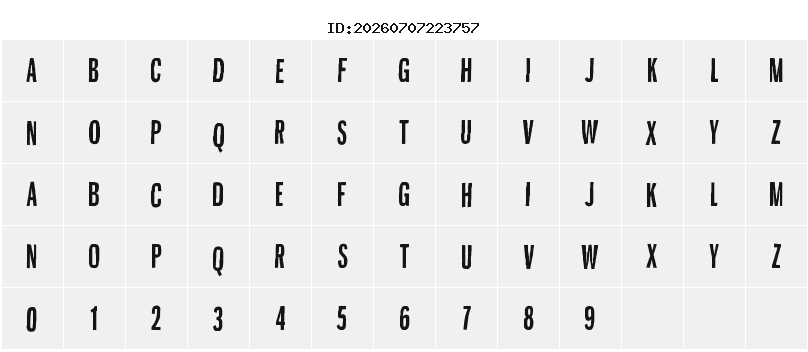
• Font Name: Darkheart
• Designer: Ray Larabie
About Darkheart.ttf
Darkheart.ttf is a modern, elegant sans-serif font designed for ultimate readability and visual harmony. Perfect for branding, headlines, web design, and print materials.